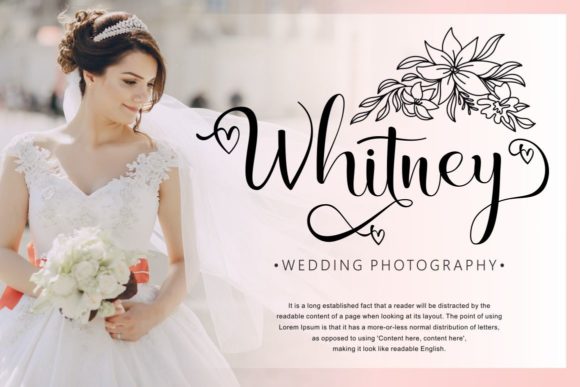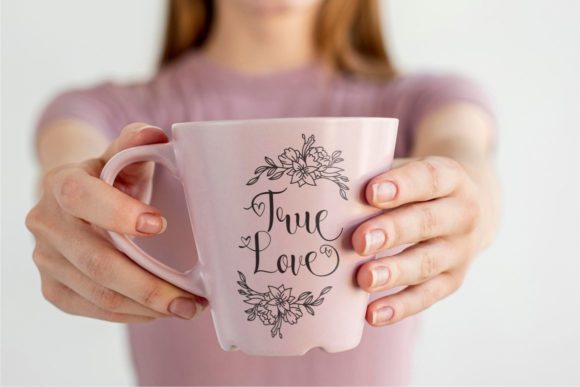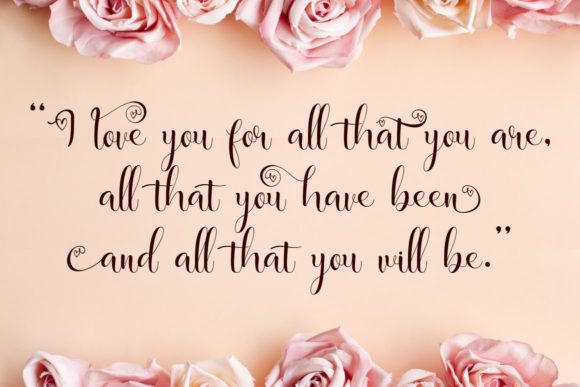
About Marithe Font
Marithe is a distinct graceful script font. Fall for its ravishing style and use it to create gorgeous designs. This font is PUA encoded which means you can access all glyphs and swashes with ease!